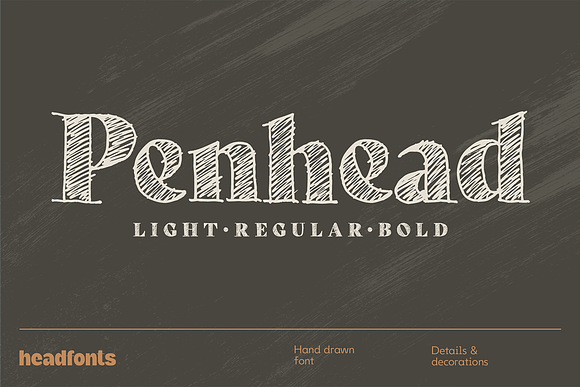
Penhead - Pencil Sketch Font
This artistic typeface is perfect for art studios, sketch portfolios, creative agencies, drawing tutorials, artistic brands, design schools, illustration projects, handmade crafts, and authentic sketch design applications.
What makes this font exciting is its pencil-drawn authenticity combined with artistic spontaneity, offering designers a sketch-perfect typeface that captures the essence of creative draftsmanship while delivering hand-drawn charm and artistic visual sophistication.
The Penhead font family includes light, regular, medium, bold, sketch, and artistic variations, providing complete creative design solutions for creating authentic artistic visual identities.
Whether you're developing artistic studio brands or crafting creative sketch experiences, Penhead - Pencil Sketch Font Free Download brings exceptional artistic atmosphere and sketch authenticity to every application. This creative typeface combines traditional sketch typography with contemporary artistic design, creating letterforms that inspire creativity and celebrate artistic expression. The font's sketch construction and artistry-ready details make it perfect for brands seeking immediate creative recognition.
Penhead - Pencil Sketch Font features carefully crafted sketch styling with authentic artistic character that conveys genuine creative expertise. Each character has been designed with natural pencil strokes and sketchy elements that enhance the artistic aesthetic. The font's sketch qualities make it particularly effective for art brands and creative applications.
Professional designers choose Penhead - Pencil Sketch Font for projects requiring authentic artistic credibility and sketch atmosphere. Its creative heritage makes it exceptionally well-suited for art studios, design agencies, and artistic lifestyle brands. The font's versatile sketch variations allow designers to control the artistic intensity, from subtle creative elegance to full sketch celebration.
The complete Penhead - Pencil Sketch Font package offers extensive artistic ornaments and sketch decorative elements that enhance the creative aesthetic. Advanced pencil features allow designers to create complex artistic effects with multiple sketch-inspired options. This comprehensive creative toolkit ensures designers have everything needed to create authentic artistic communications that celebrate the irreplaceable value of hand-drawn creativity and pencil sketch excellence.